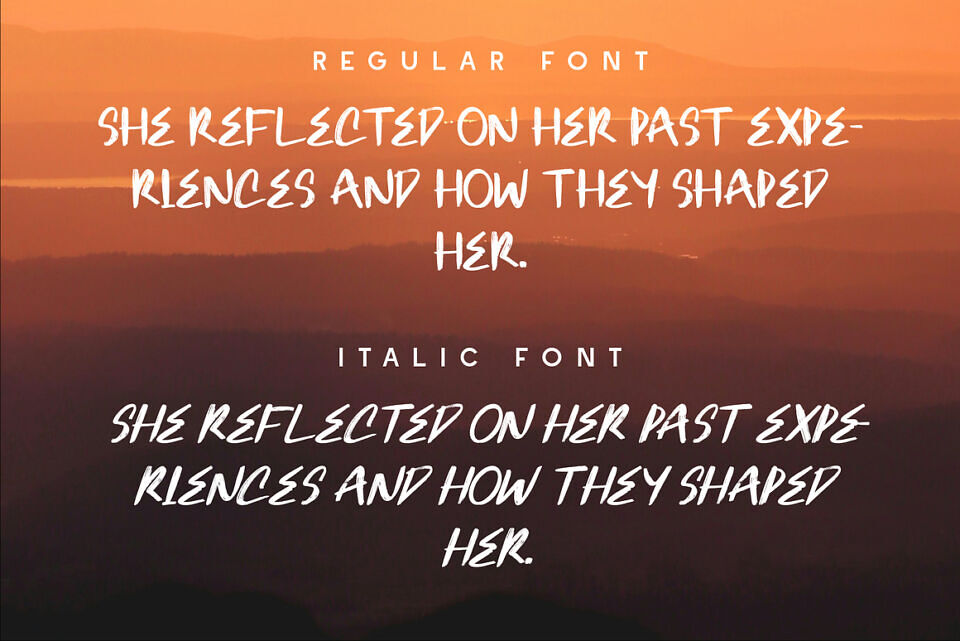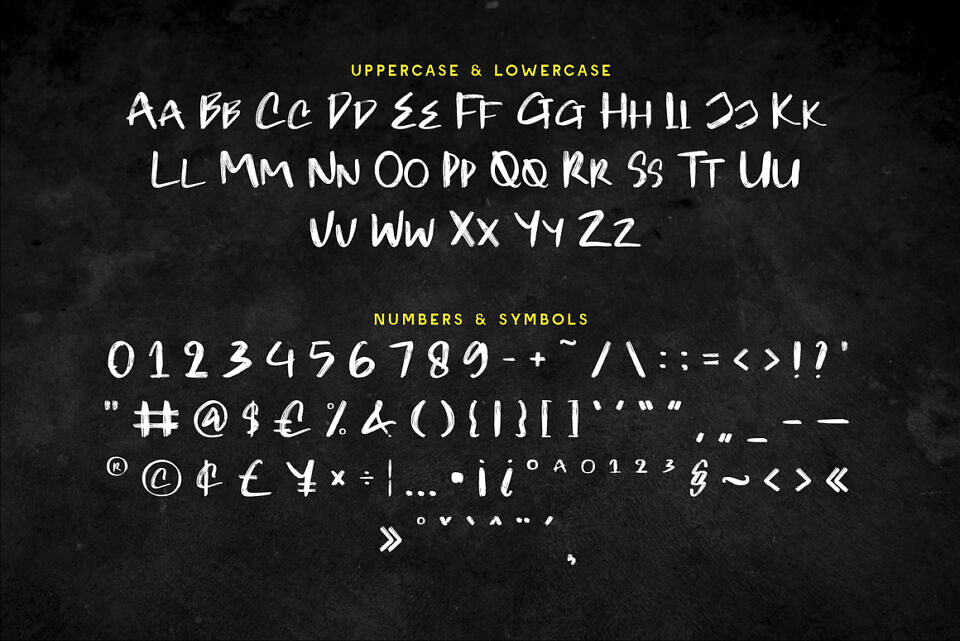
Vortex Stride is a Bold & Freestyle Brush Display Font Feel the unstoppable energy of Vortex Stride, a brush freestyle display font designed for creatives who love bold, expressive typography.
With its hand-painted strokes, rough textures, and dynamic movement, this font adds a powerful, adventurous touch to any project. Perfect for sports branding, streetwear, posters, album covers, social media, and high-impact marketing, Vortex Stride delivers raw intensity and motion, making it an excellent choice for designs that need to stand out with confidence and boldness.